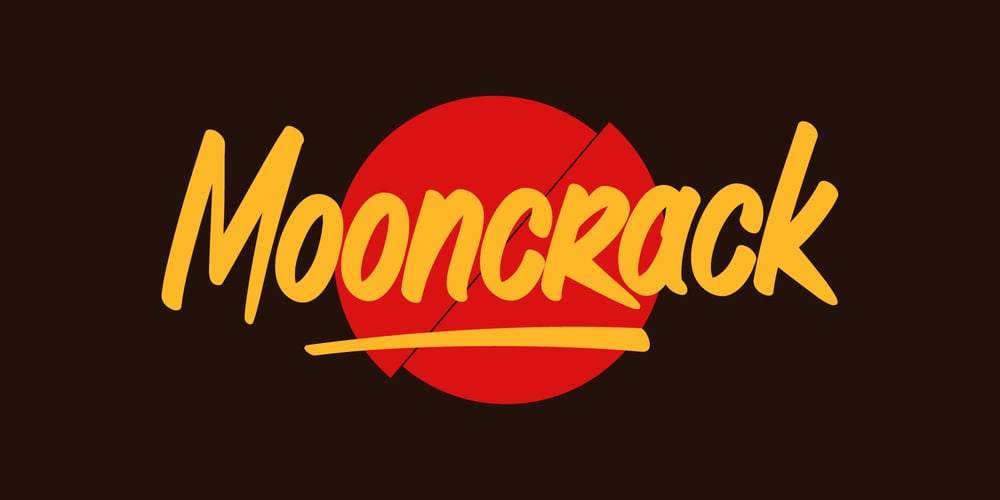
Mooncrack Font Family was designed by Dwi Ahidian and published by Lemonthe. Mooncrack contains 1 styles and family package options. Mooncrack is a brush-style font with bold, masculine strokes. This typeface captures attention with its thick and bold letterforms, making it an ideal choice for design projects that require a strong visual presence. It is suitable for various design projects such as logos, branding, posters, quotes, packaging design, labels, and much more!